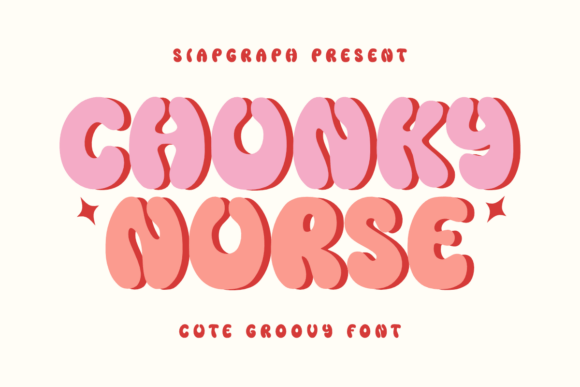
Introduction to Chunky Nurse Font
Chunky Nurse is a display font that exudes a fun and thick personality with a touch of groovy charm.
Its delightfully chunky and rounded letterforms, combined with subtle wavy edges, create a retro yet contemporary feel that’s both eye-catching and approachable This font is perfect for injecting a dose of playful boldness into a wide variety of creative endeavors.